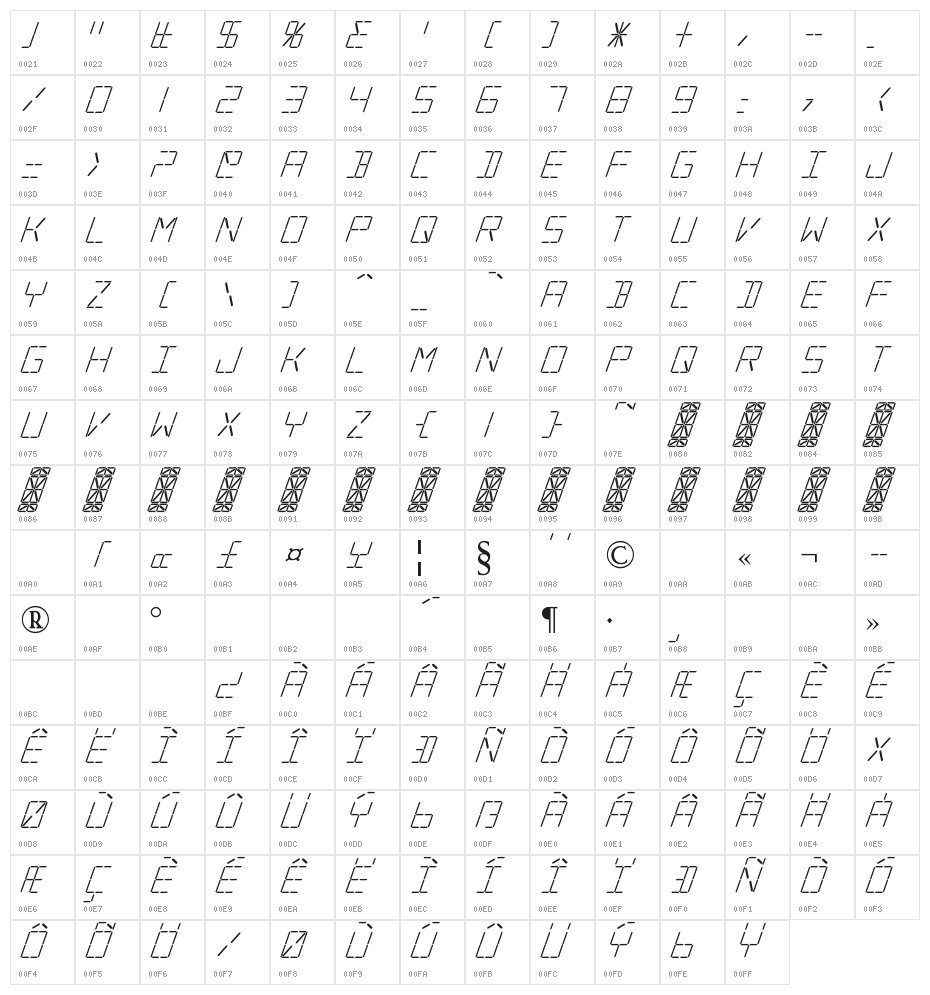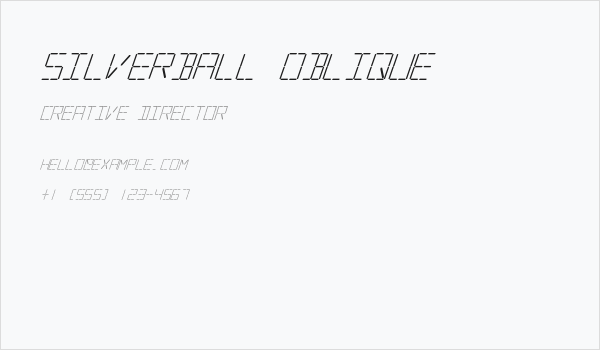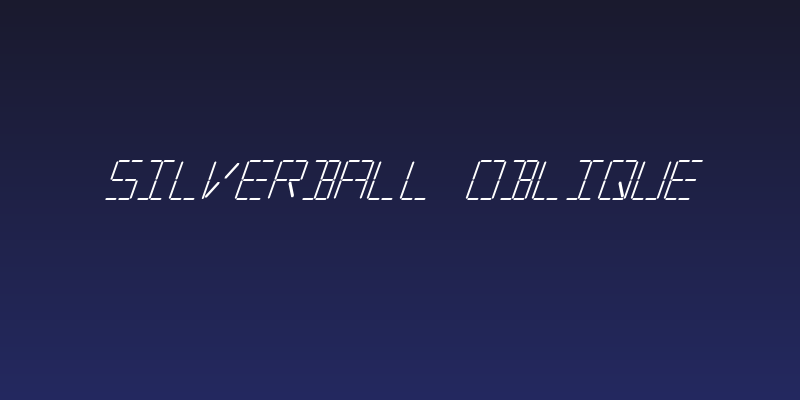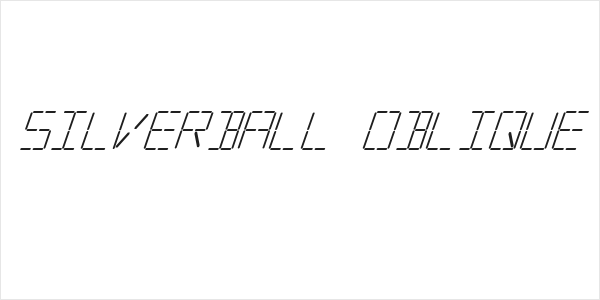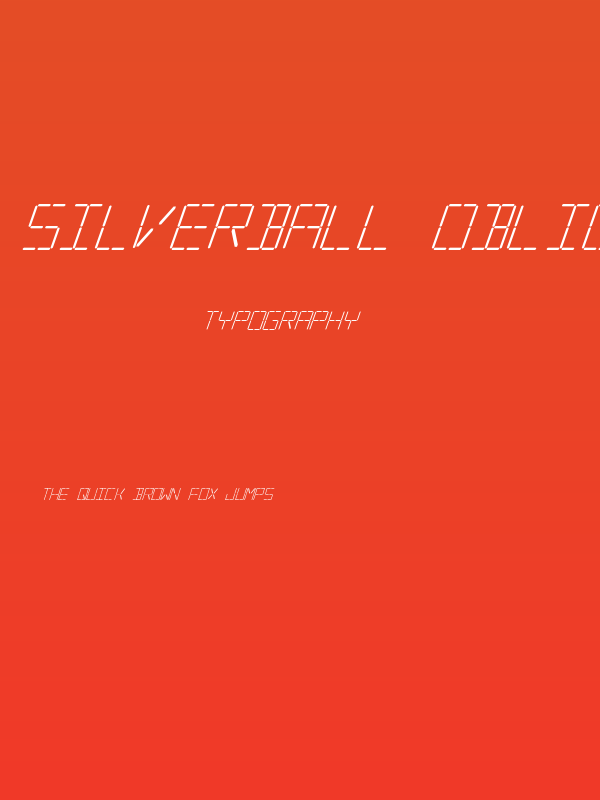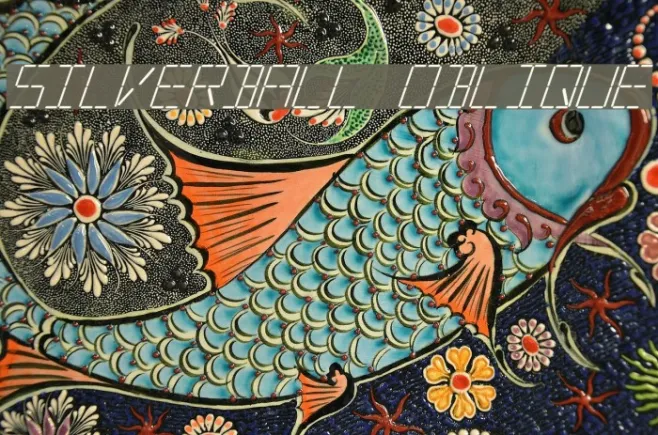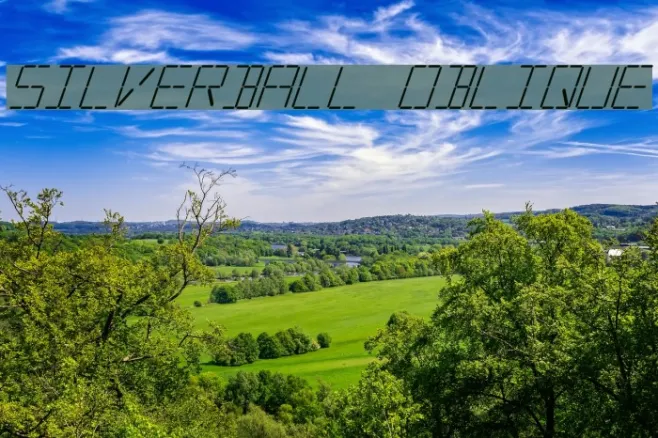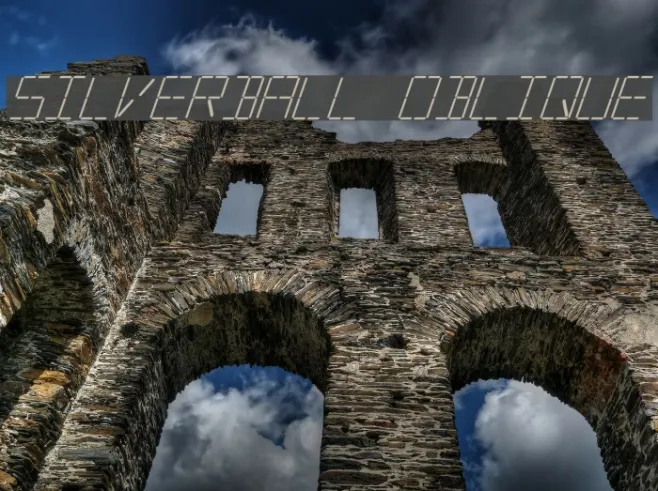
Silverball Oblique Font
Silverball Oblique Description
This font features a unique, futuristic design with a distinct oblique slant. The characters are composed of segmented lines, giving them a digital, almost mechanical appearance. The uppercase and lowercase letters maintain a consistent style, with sharp angles and a uniform stroke width. Numbers and special characters follow the same segmented pattern, ensuring a cohesive look across all glyphs. The overall aesthetic is modern and tech-inspired, making it suitable for projects that require a contemporary and innovative feel.
| Use Case | Logos, Headlines, Digital interfaces |
| Proposed Projects | Ideal for technology branding, digital interfaces, video game graphics, and sci-fi themed projects. |